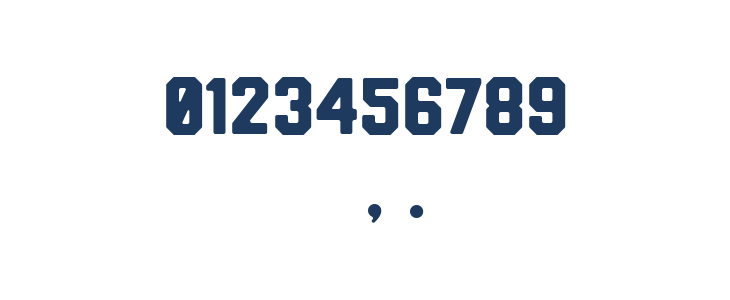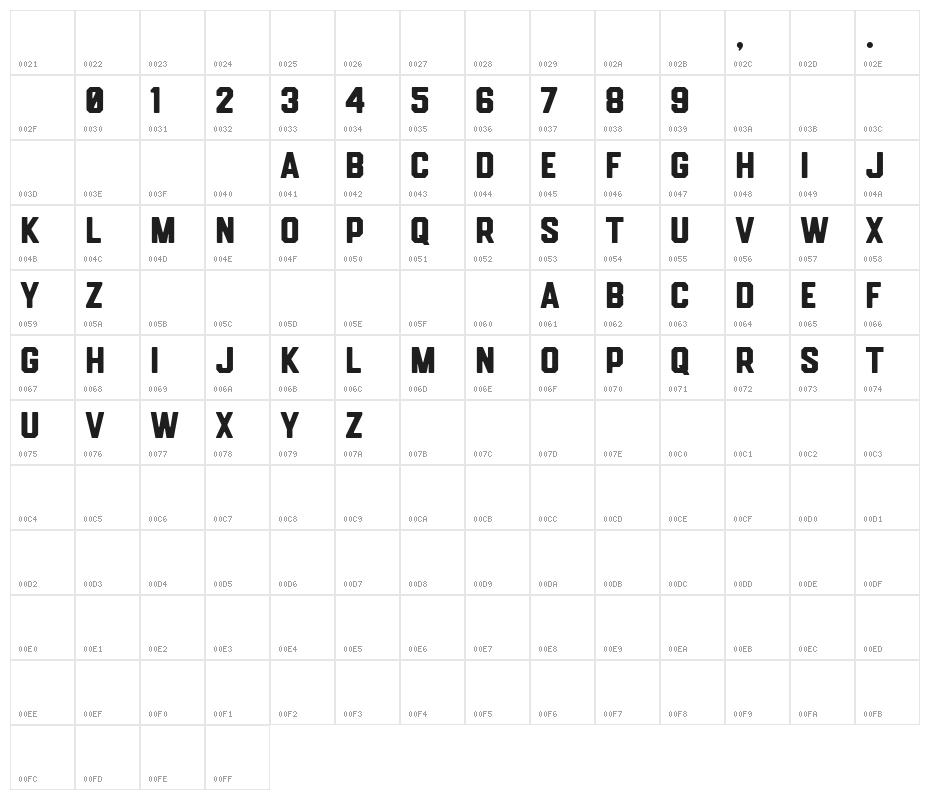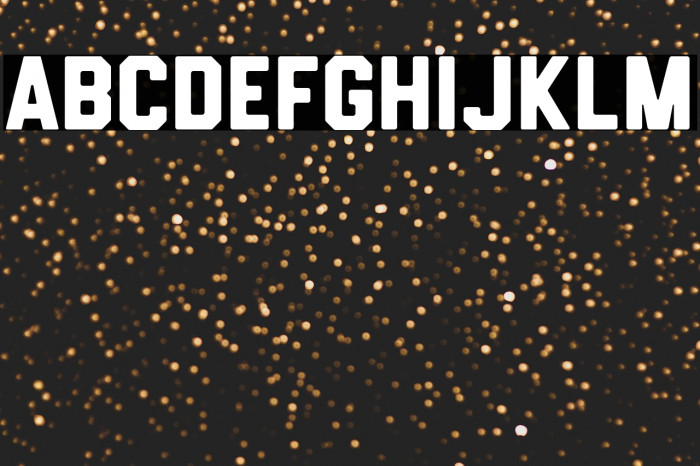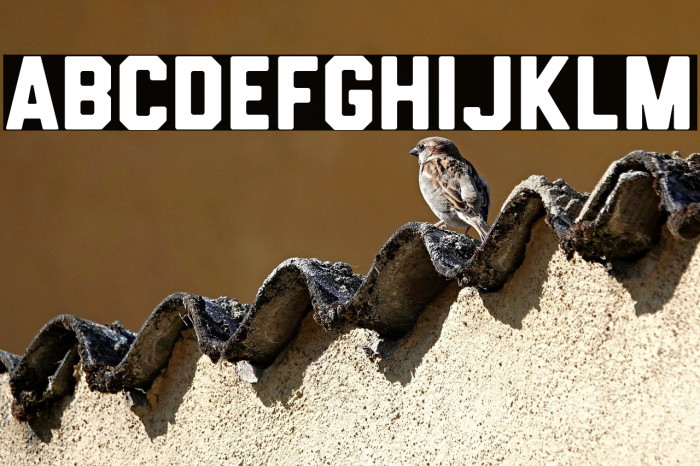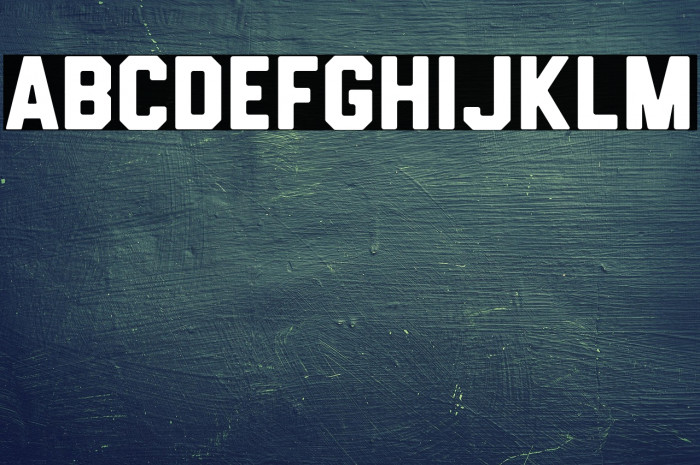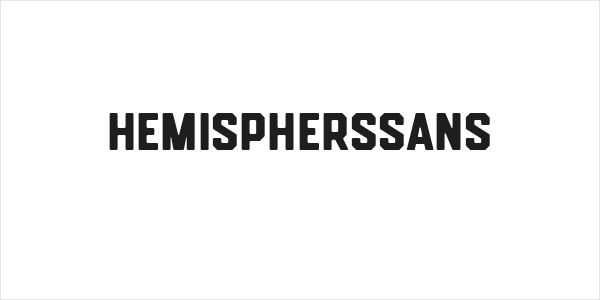
HemisphersSans Font
HemisphersSans Description
This font features a bold, geometric design with strong, angular lines and a modern aesthetic. The characters are uniformly structured, providing a sense of stability and strength. The uppercase letters are particularly striking, with a blocky appearance that commands attention. The numbers and punctuation marks follow the same robust style, ensuring consistency across all elements. The font's design is clean and uncluttered, making it highly legible even at smaller sizes. Its boldness and clarity make it ideal for impactful headlines and titles.
| Proposed Projects | Ideal for branding, posters, headlines, and any design requiring a strong visual impact. |